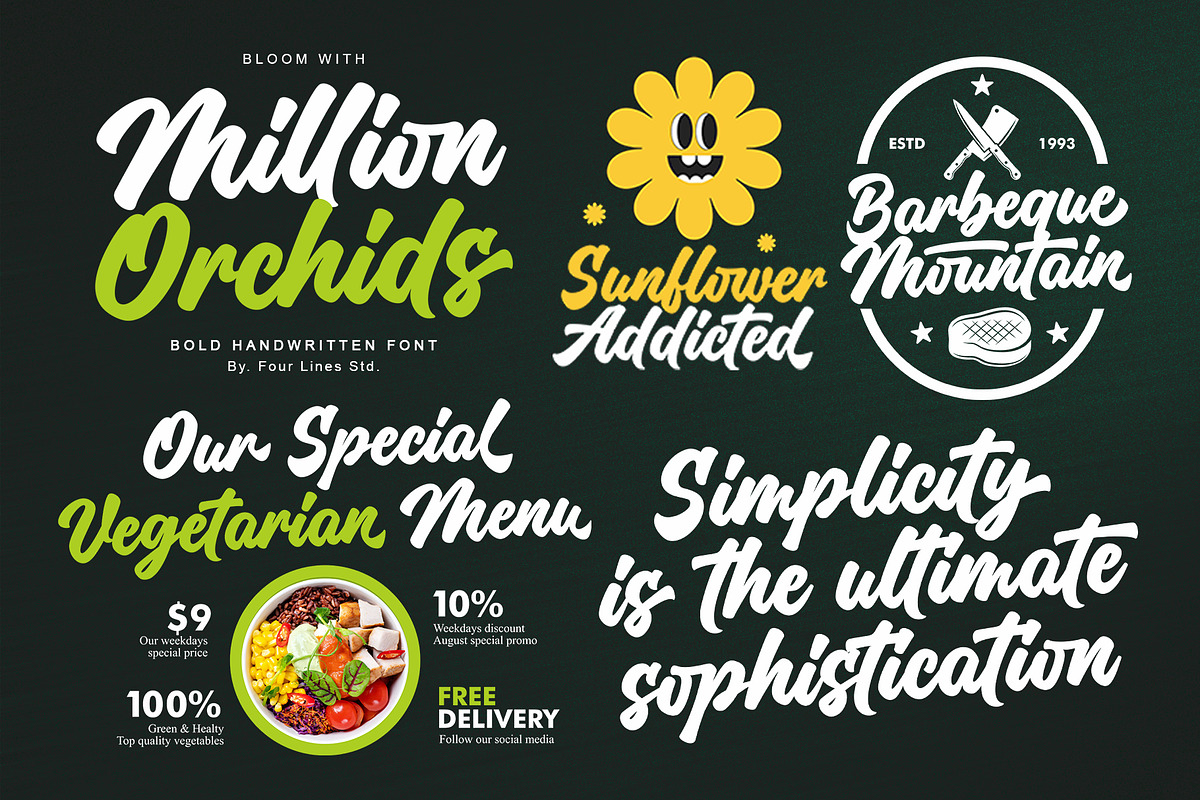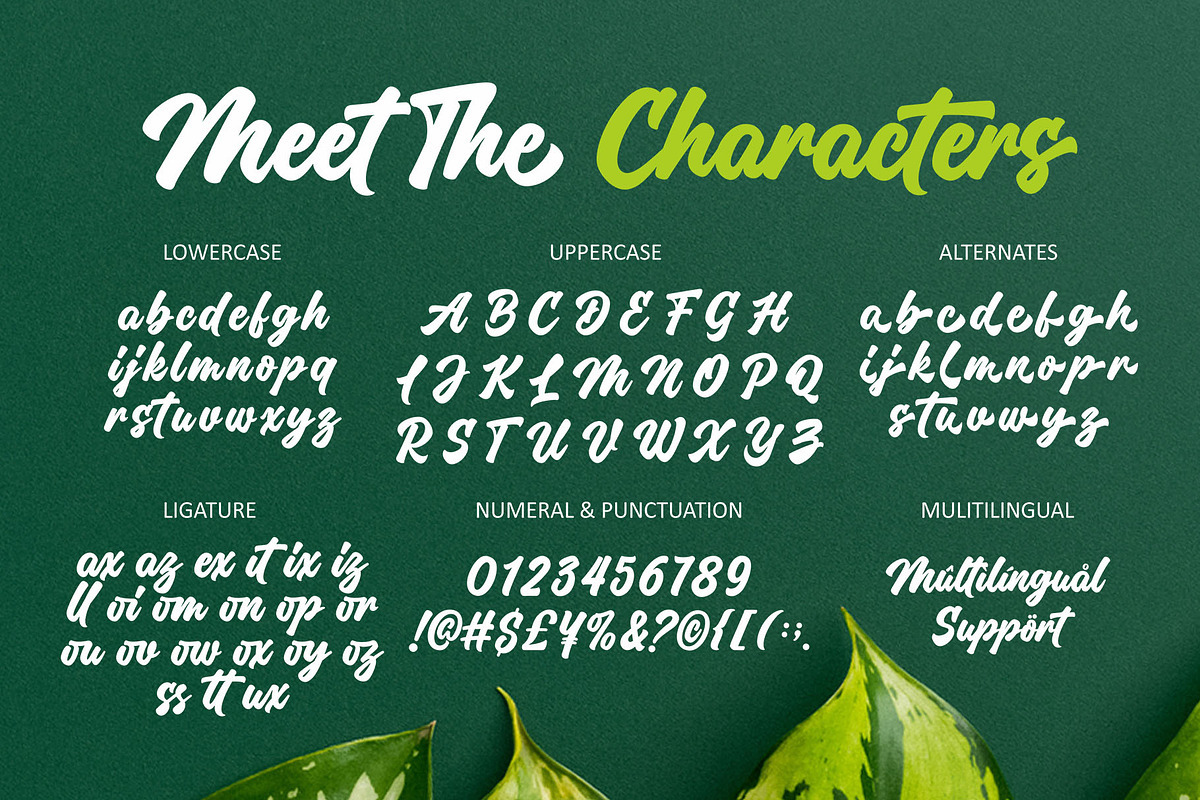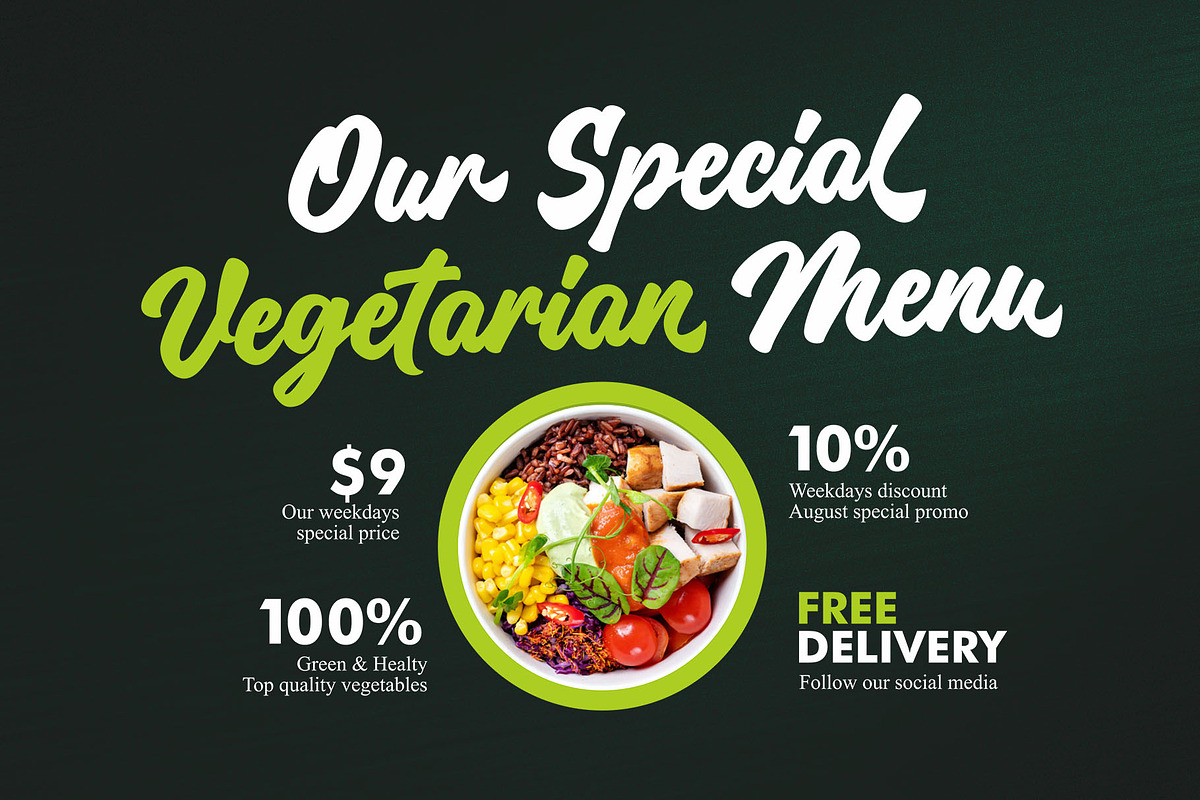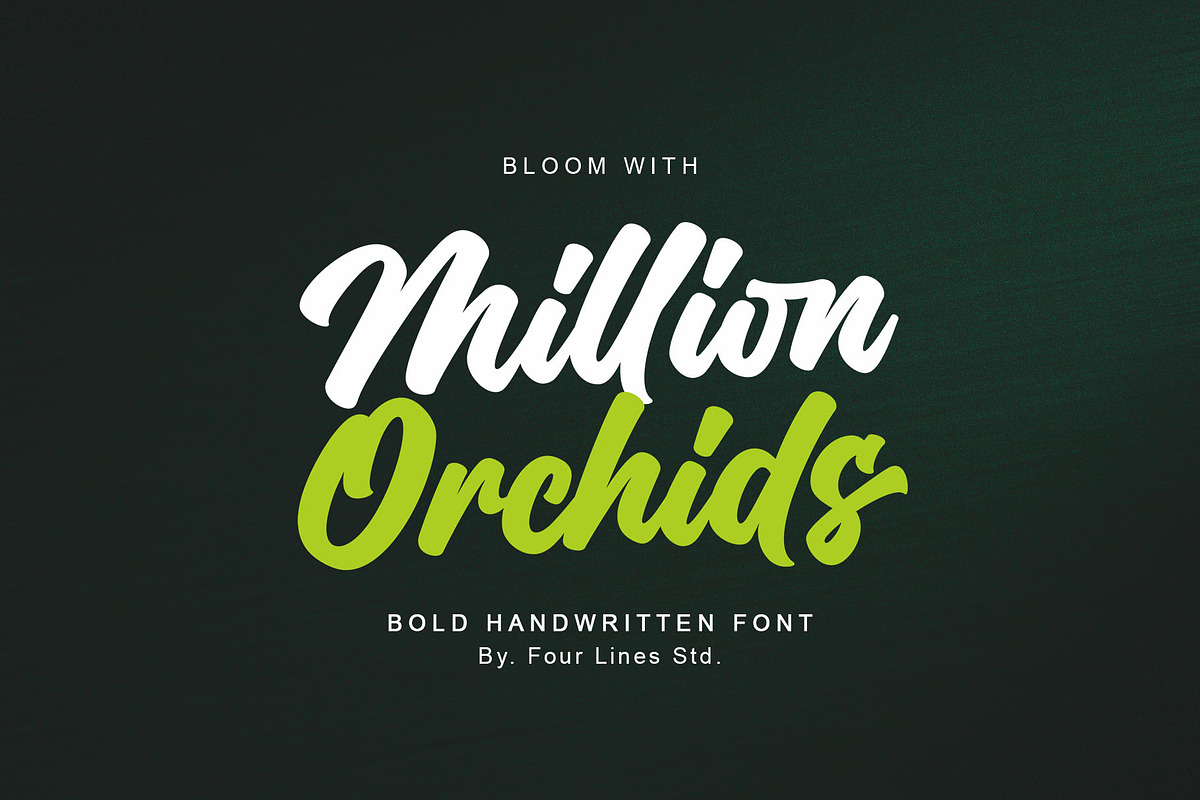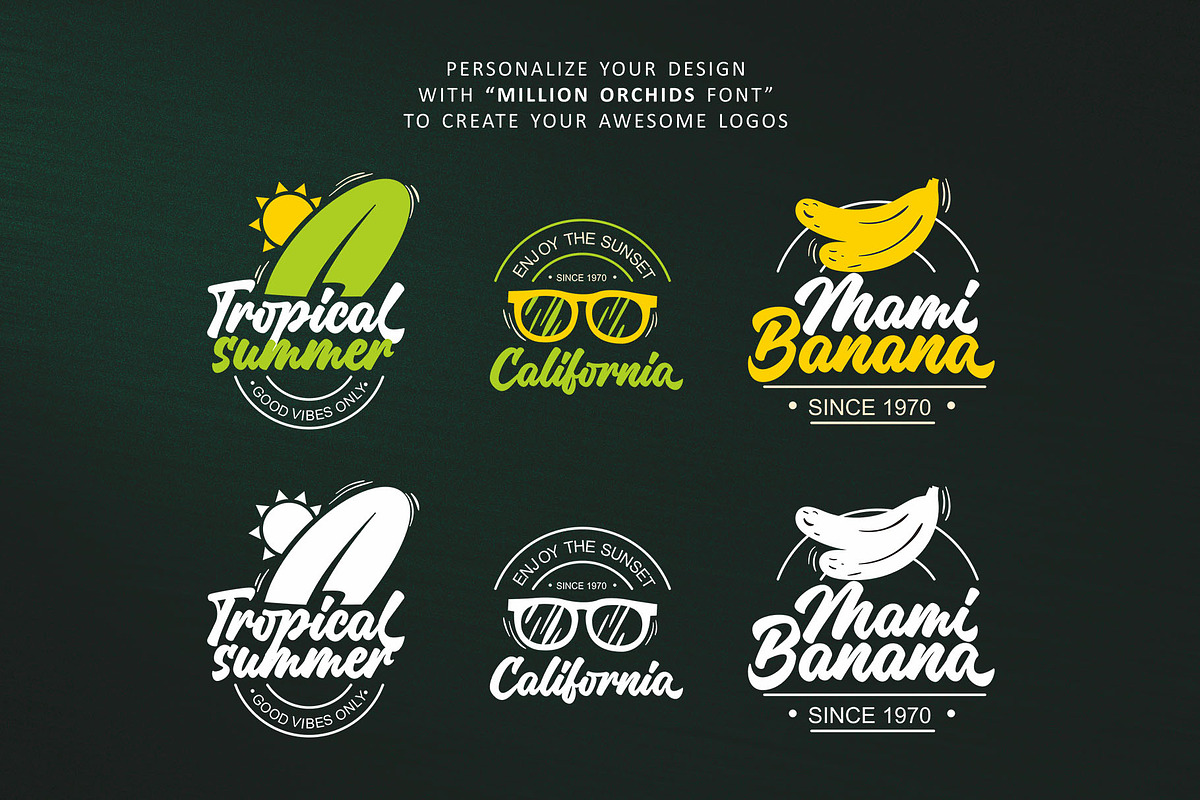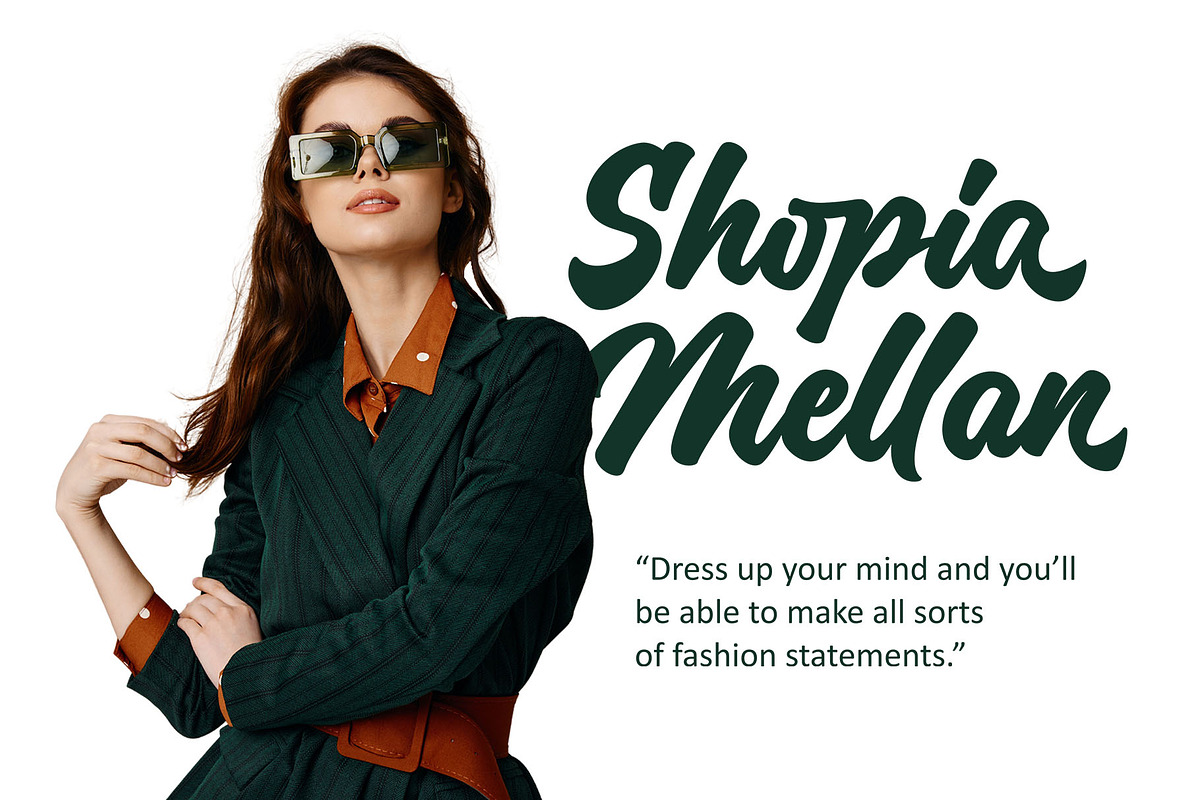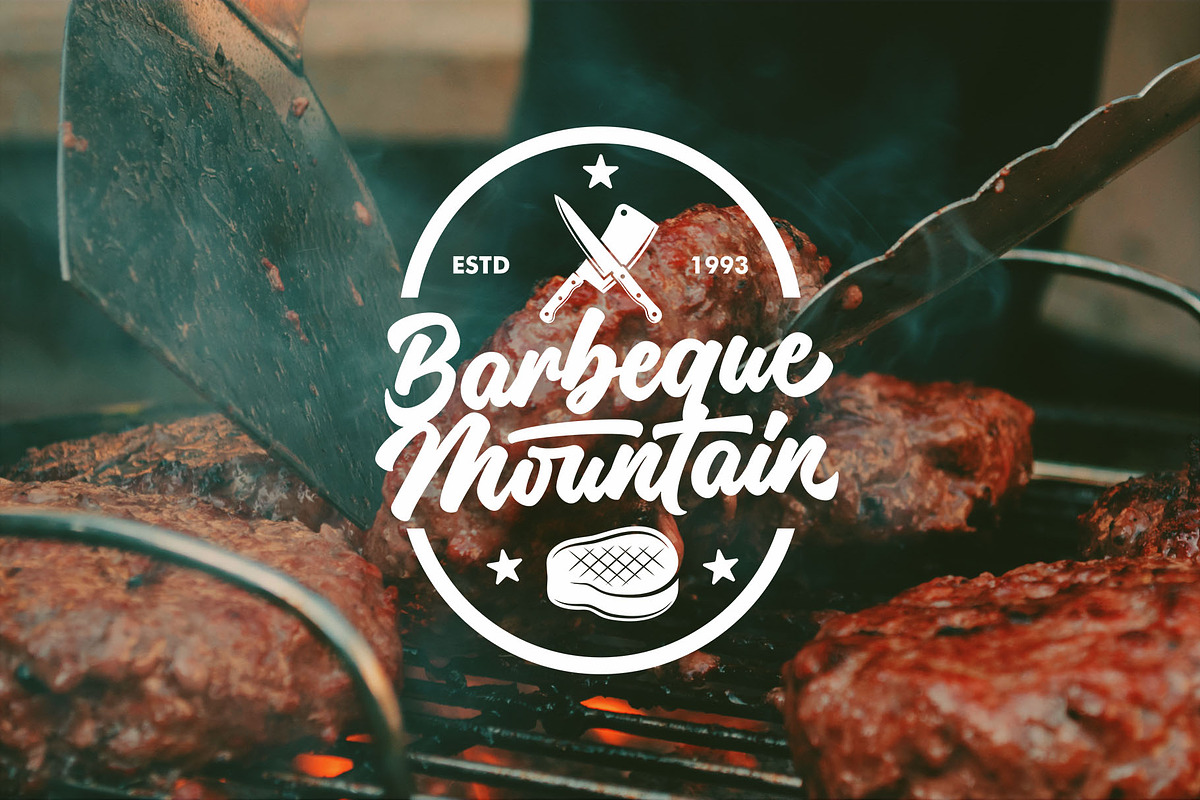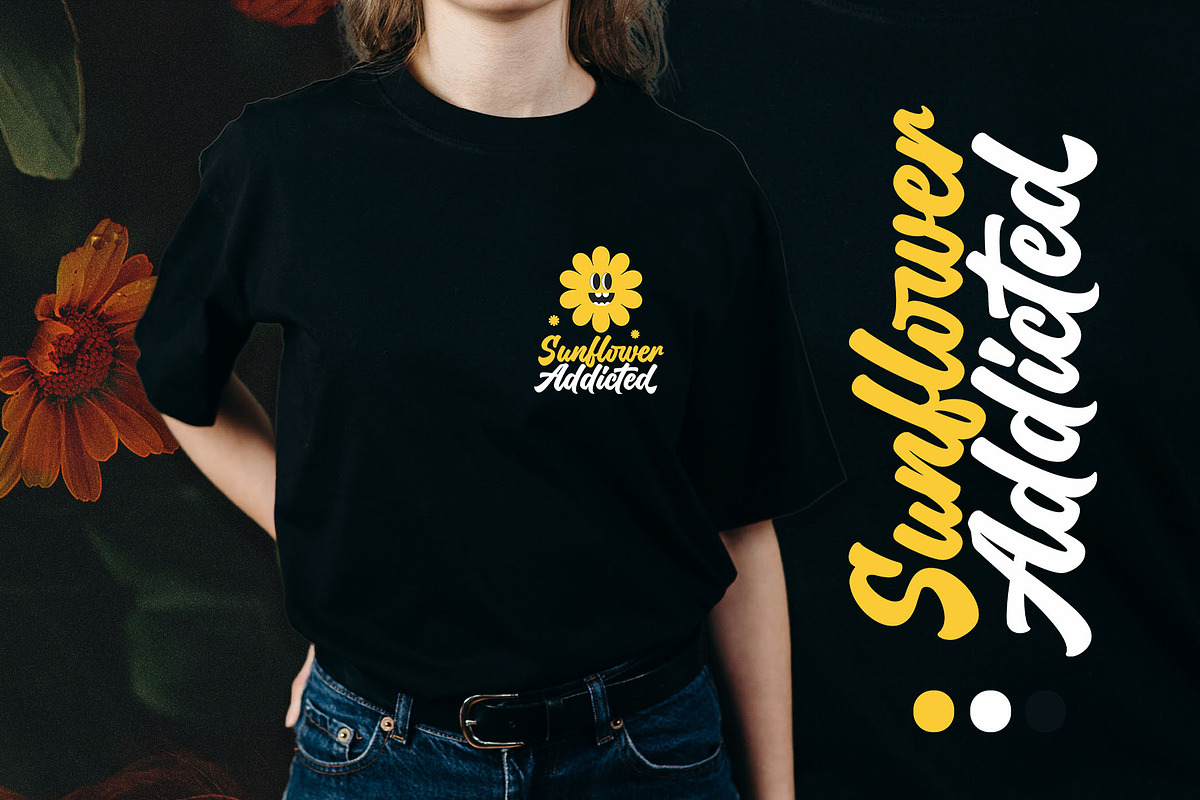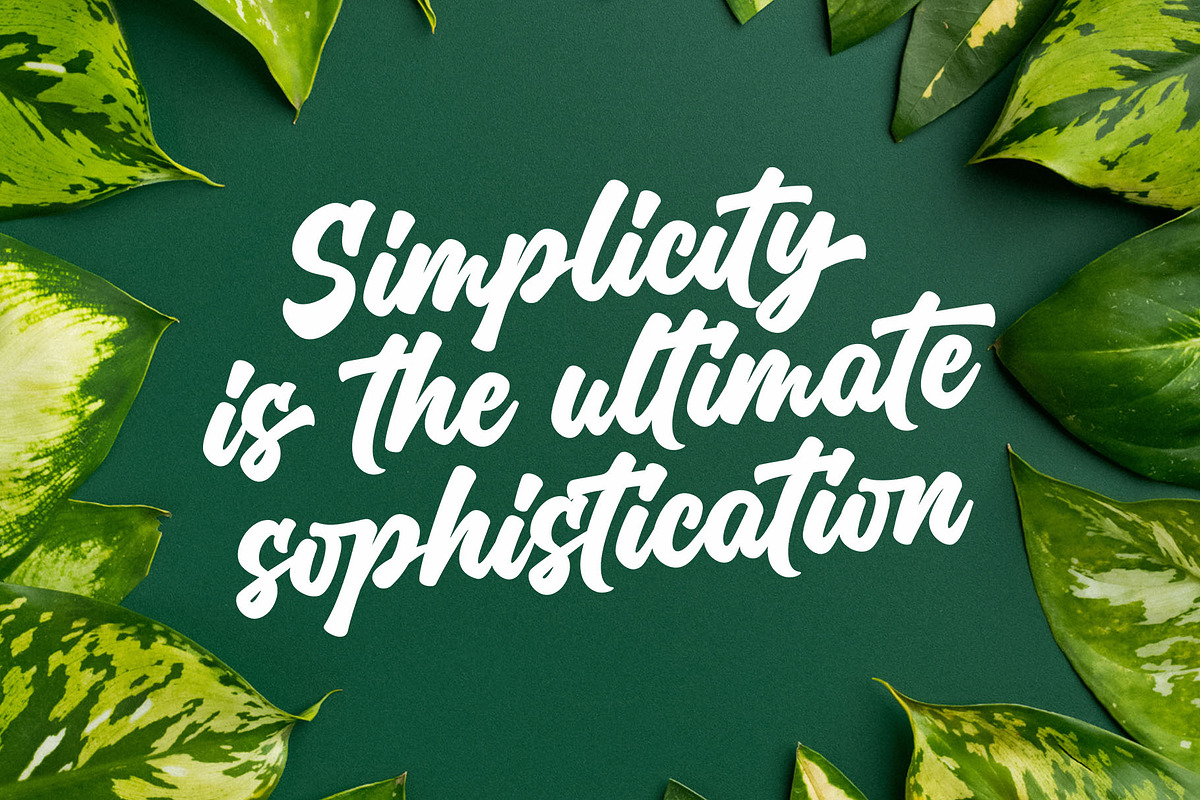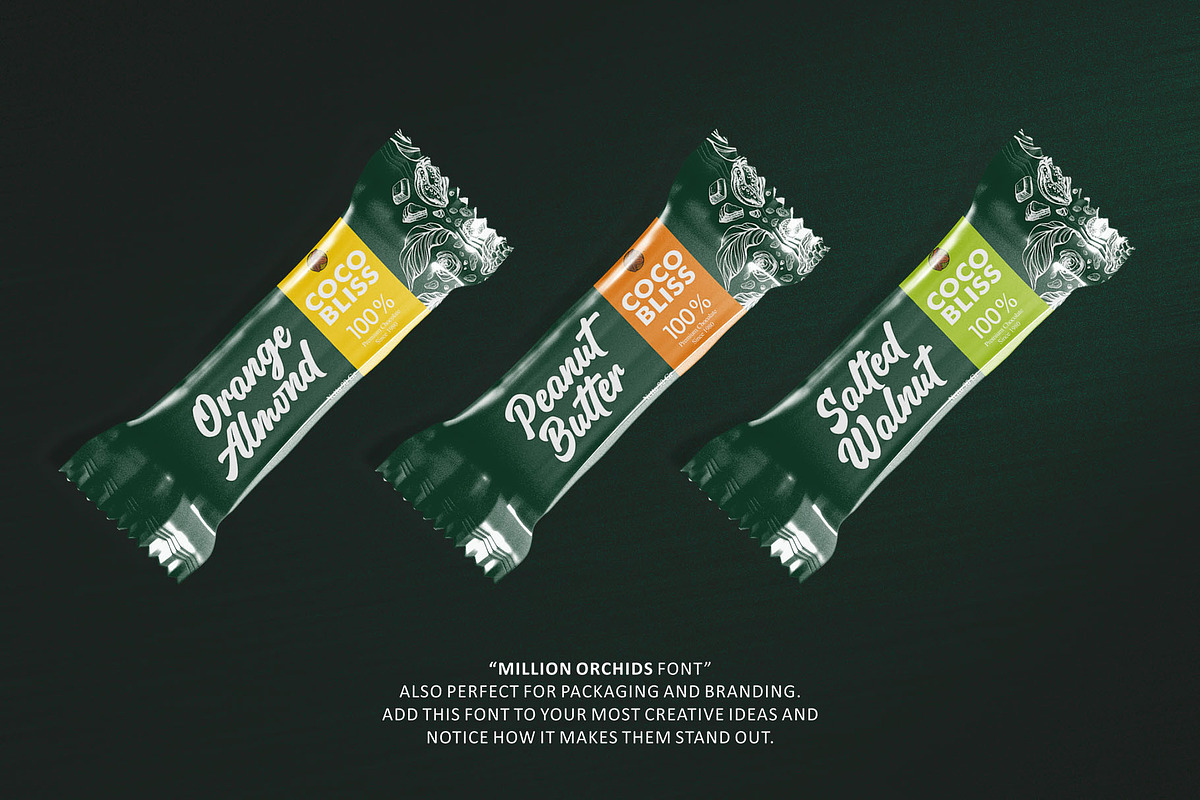
Million Orchids - Casual Handwritten
Million Orchids Font: Where Script Meets Blooming Brilliance!
Get ready to unleash your creativity and watch your designs blossom with this delightful script font. It's like having a million orchids at your fingertips, adding a touch of elegance and charm to every project. Let your imagination take root and let the million orchids font bring your designs to life!